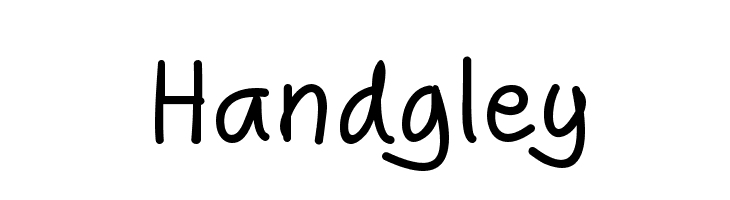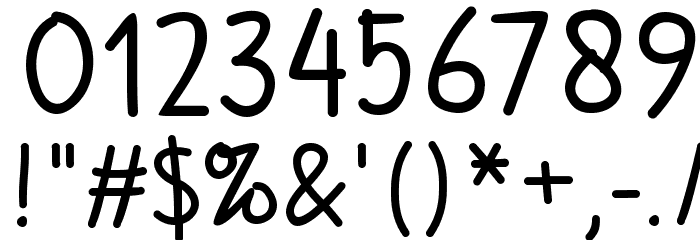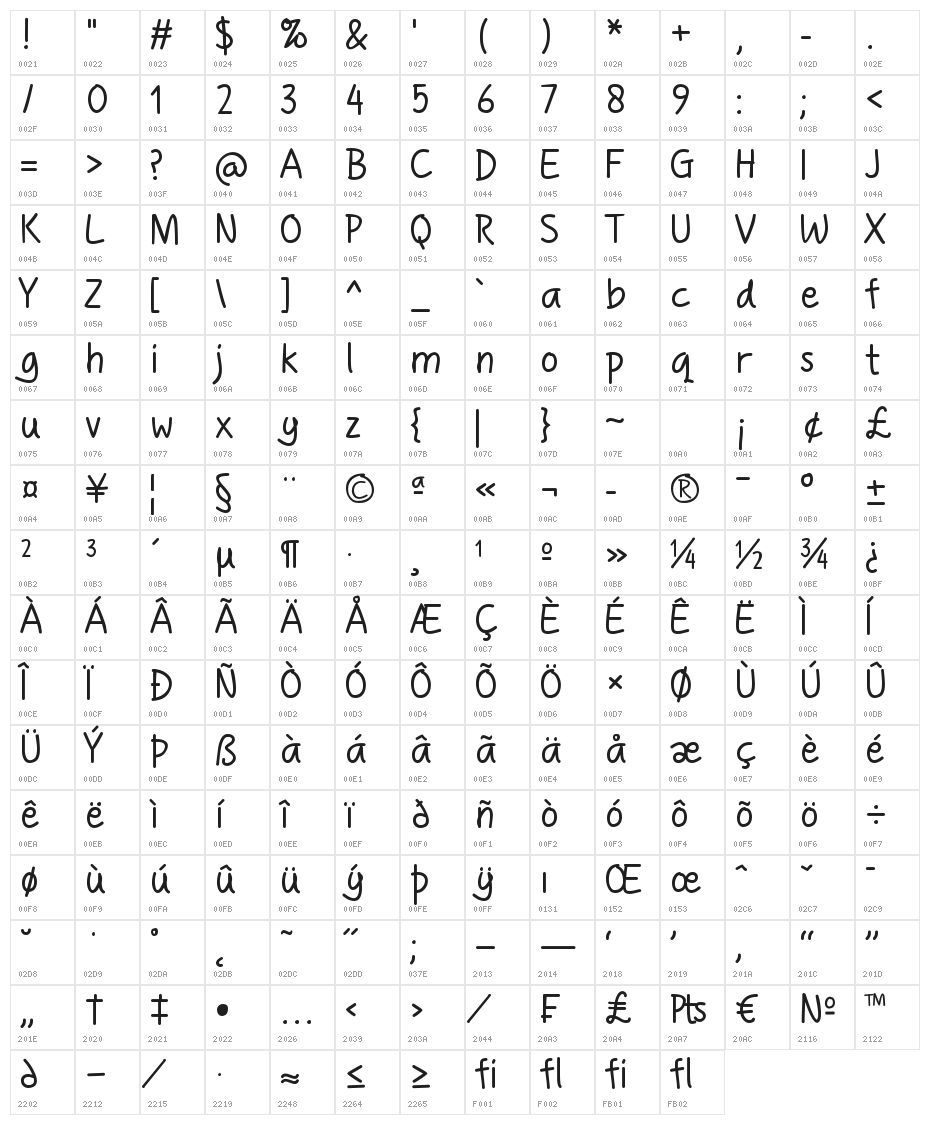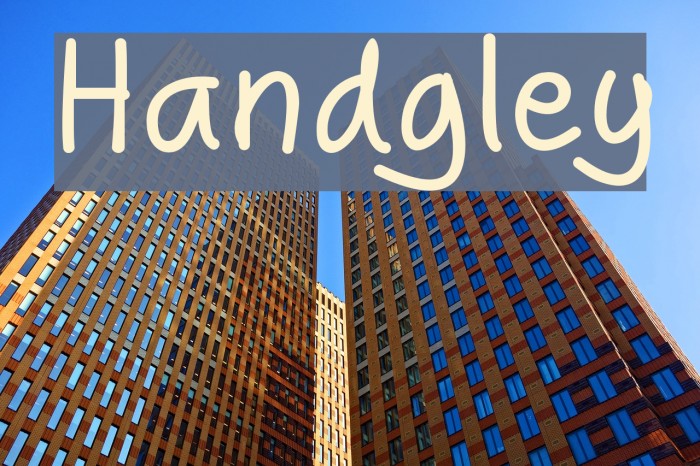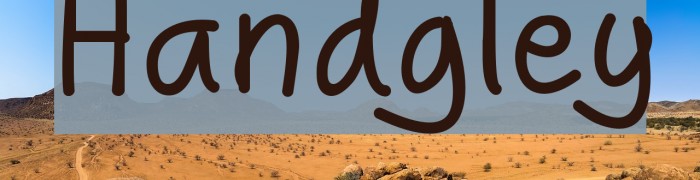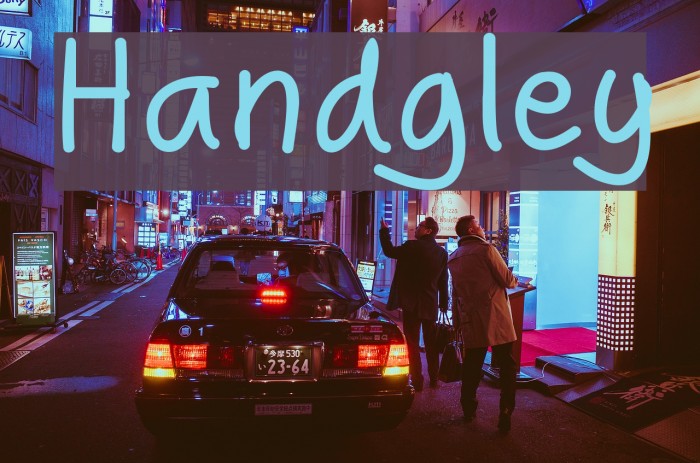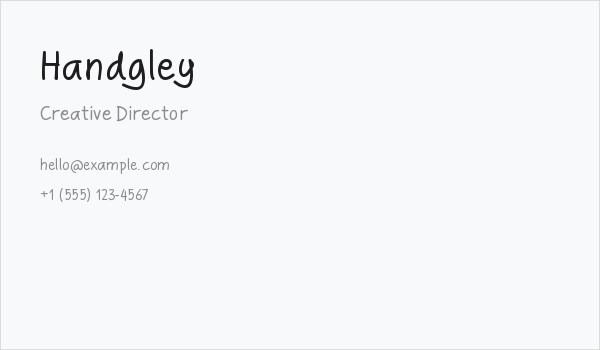
Handgley Font
Handgley Description
This font features a playful and casual handwritten style, characterized by its smooth curves and slightly irregular strokes that mimic natural handwriting. The uppercase letters are bold and slightly taller than the lowercase, which have a friendly, approachable appearance. The numbers are clear and consistent with the overall style, maintaining the same playful aesthetic. Special characters are well-integrated, ensuring versatility in various contexts. The font's informal nature makes it ideal for projects that require a personal touch, such as invitations, greeting cards, or casual branding.